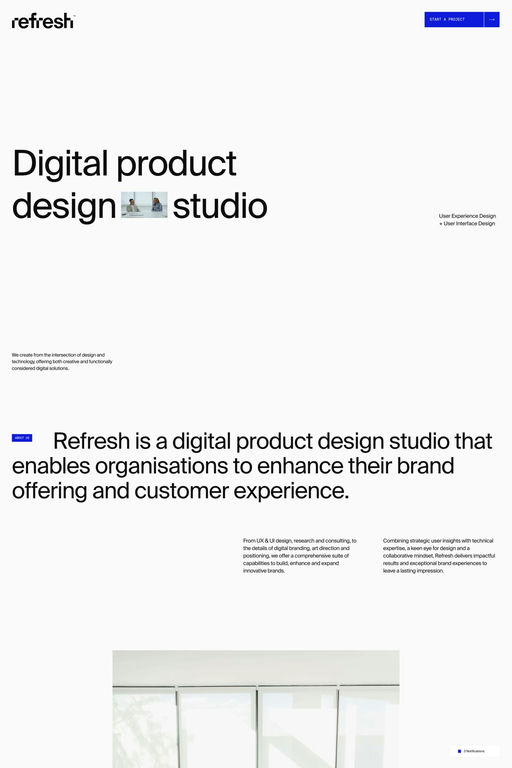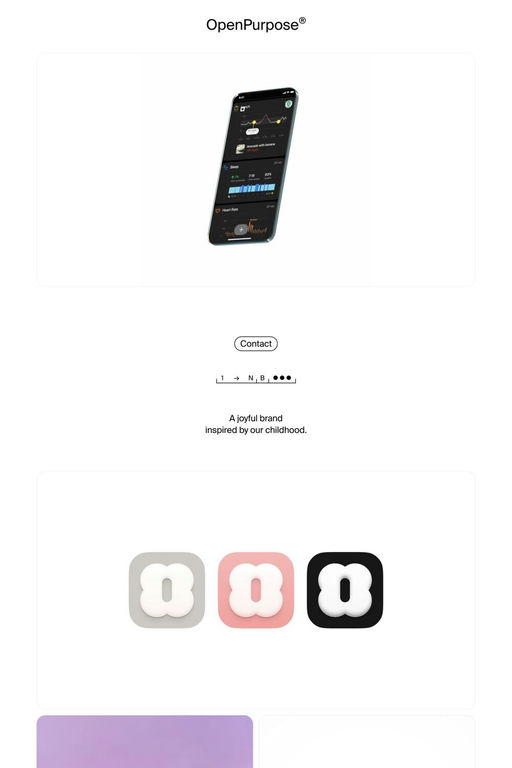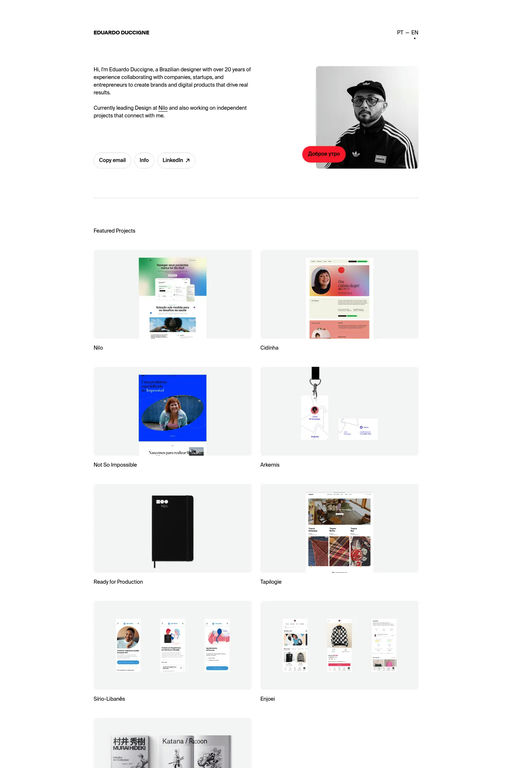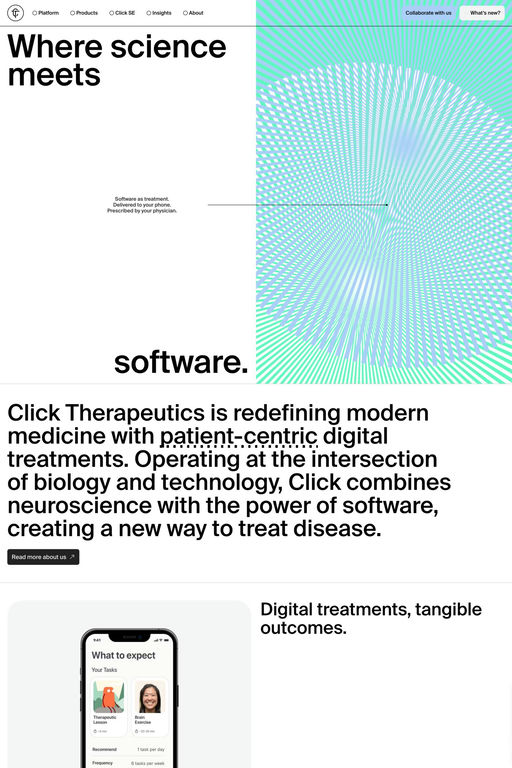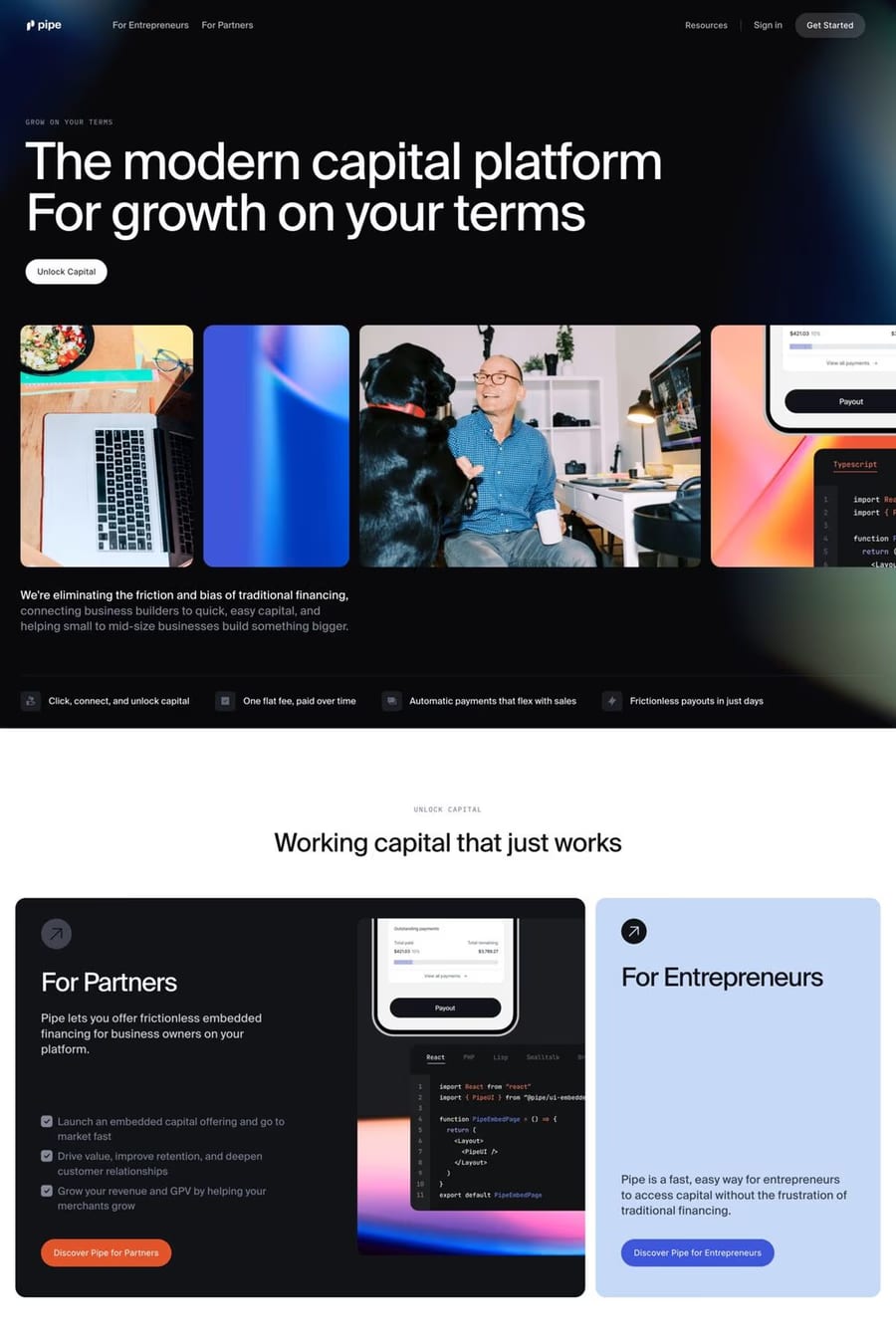
Suisse is a sans-serif typeface from Swiss Typefaces.
Suisse combines classic style with cutting edge design quality. The Suisse typeface forms the centerpiece of the Swiss Typefaces library.